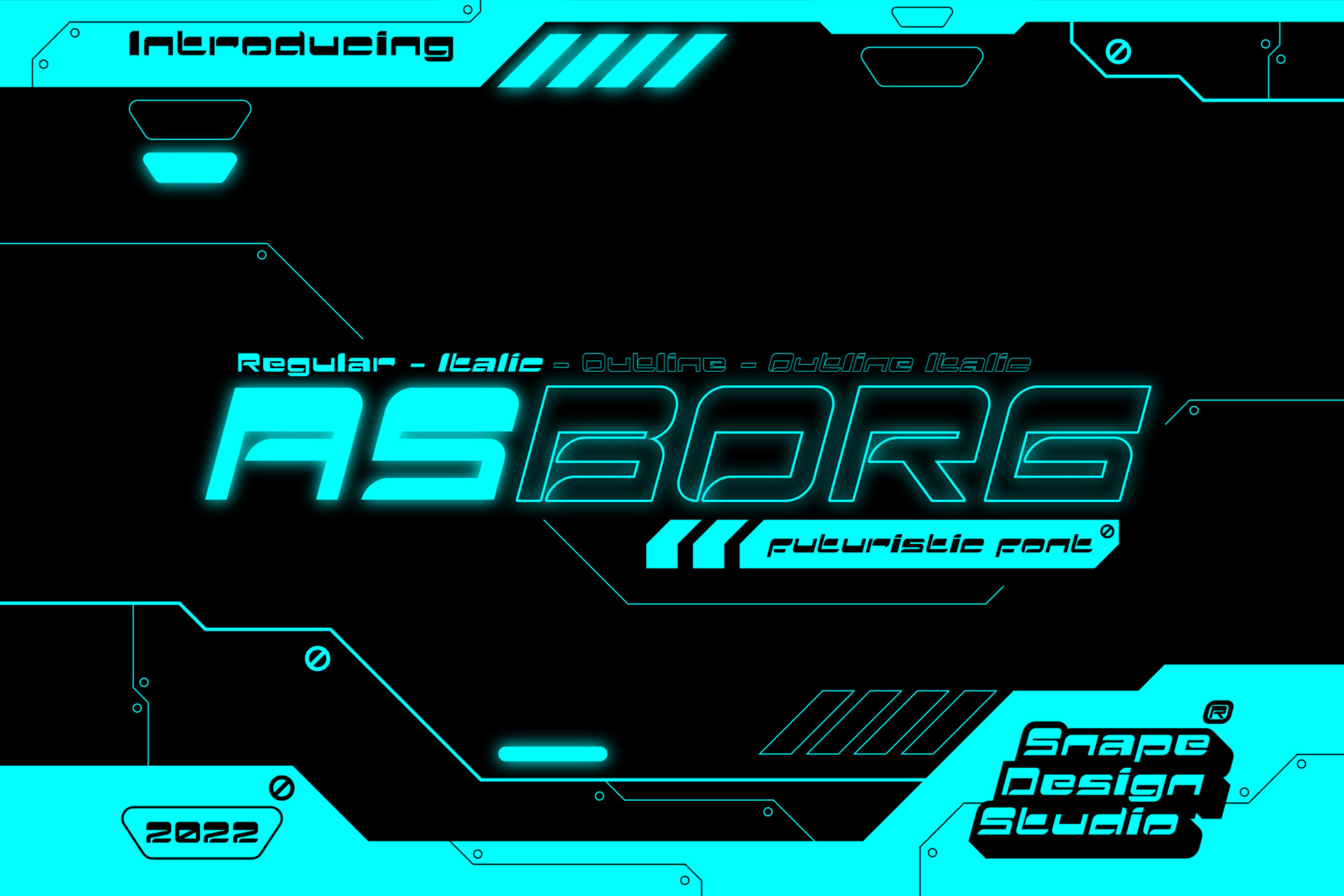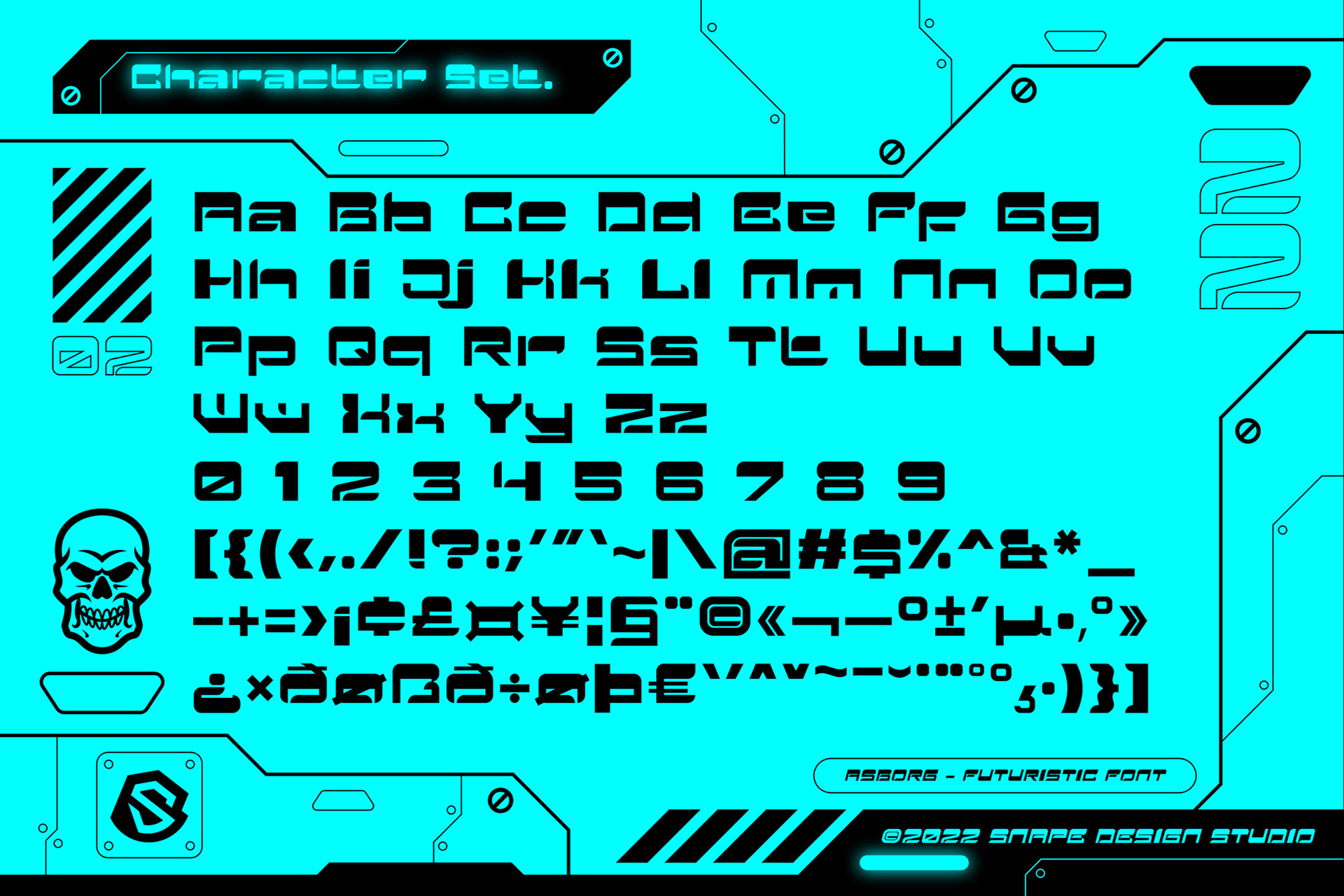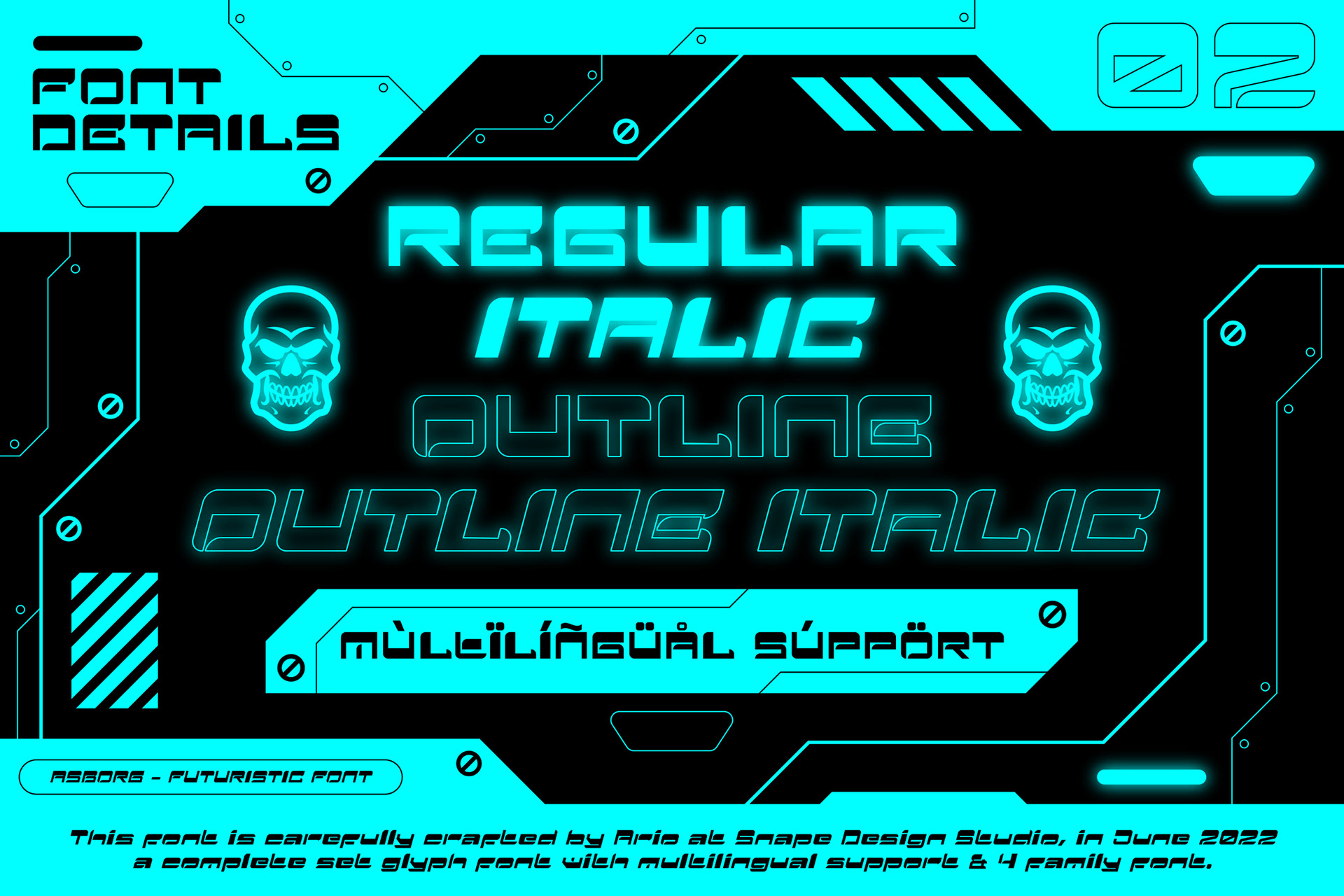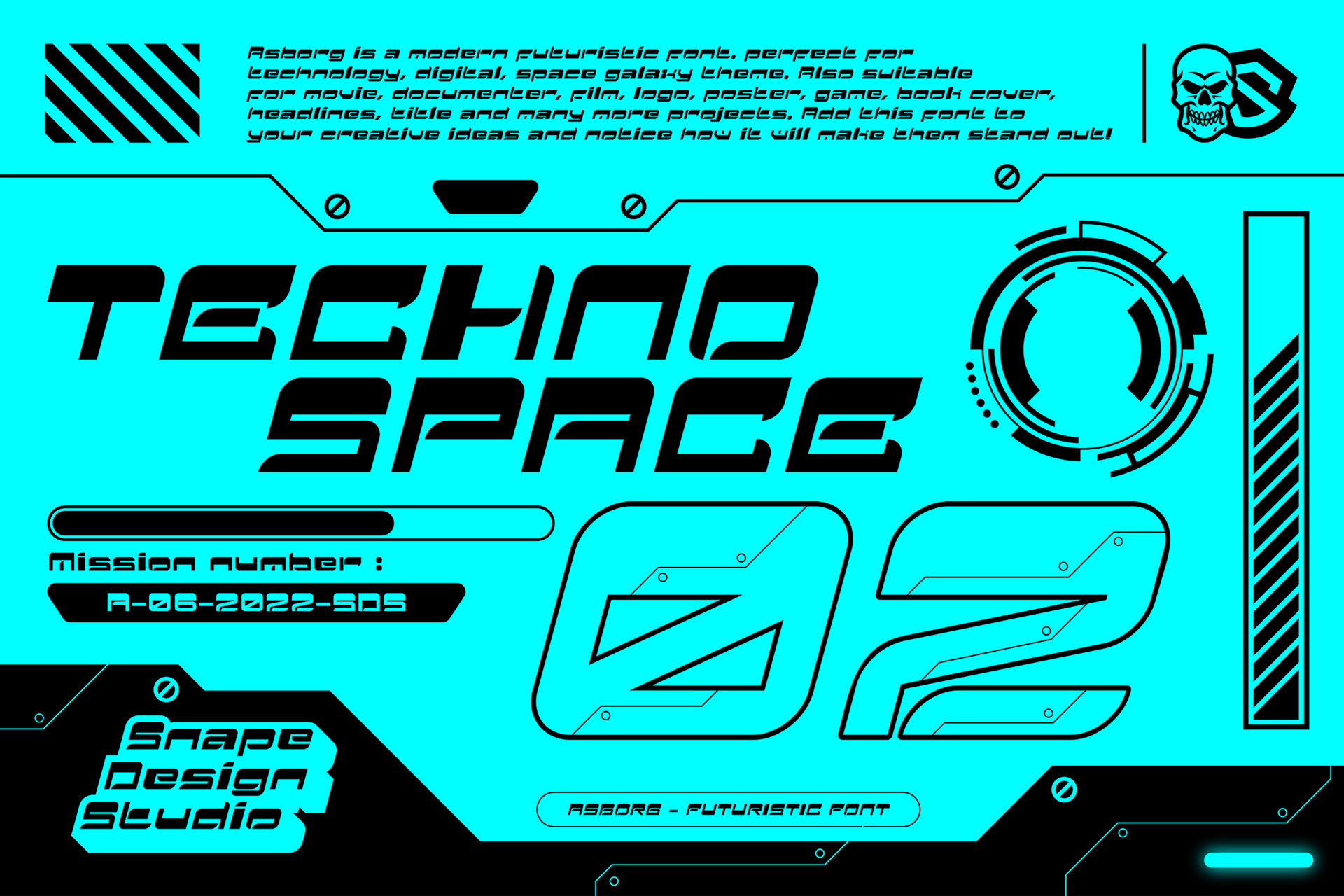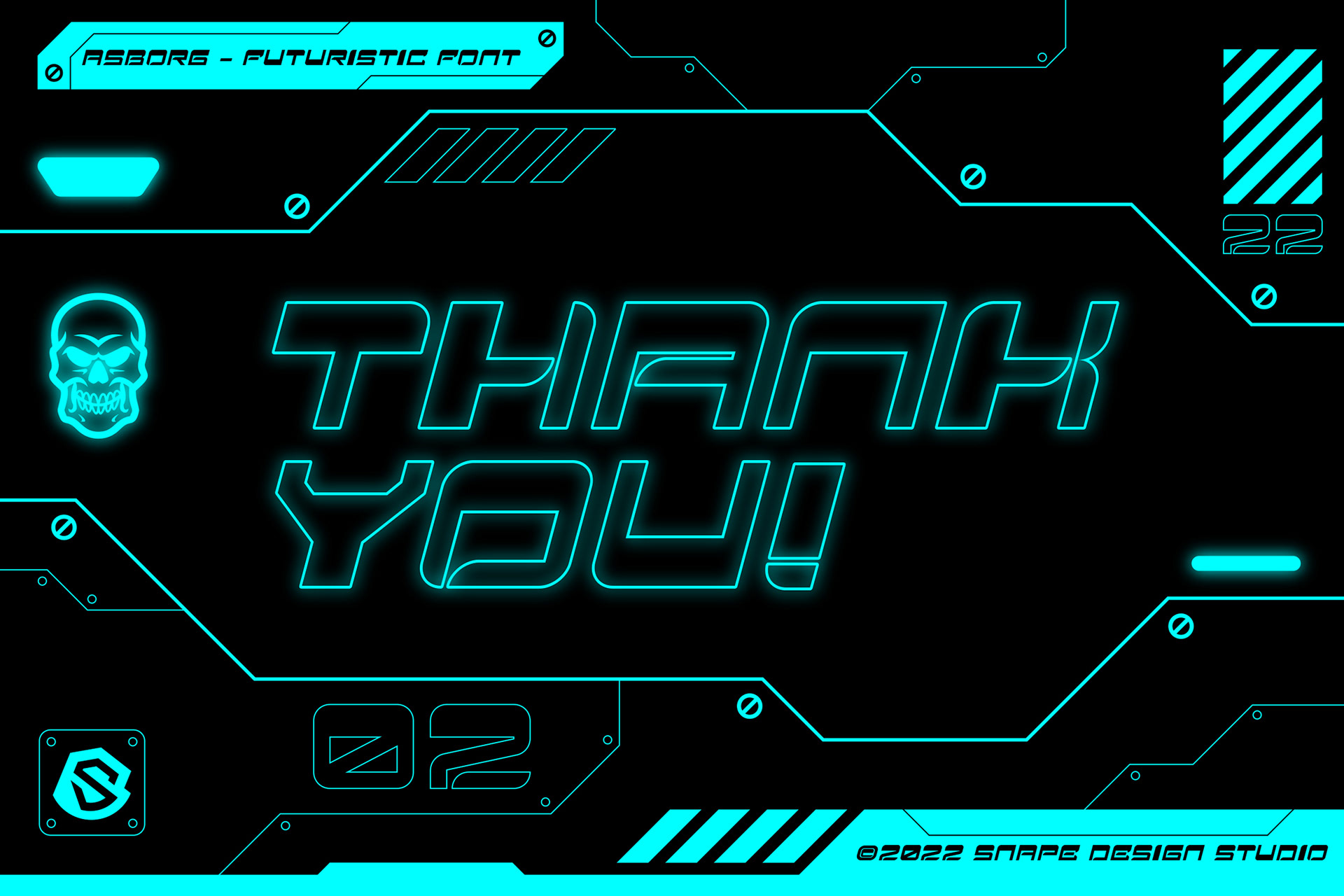
ABOUT THE FONT
Asborg is a modern futuristic font. Perfect for technology, digital, space galaxy theme. Also suitable for movie, documenter, film, logo, poster, game, book cover, headlines, title and many more projects. Add this font to your creative ideas and notice how it will make them stand out!
Asborg - Futuristic Font design by Ario Sabrang Damar publish under Snape Design Studio